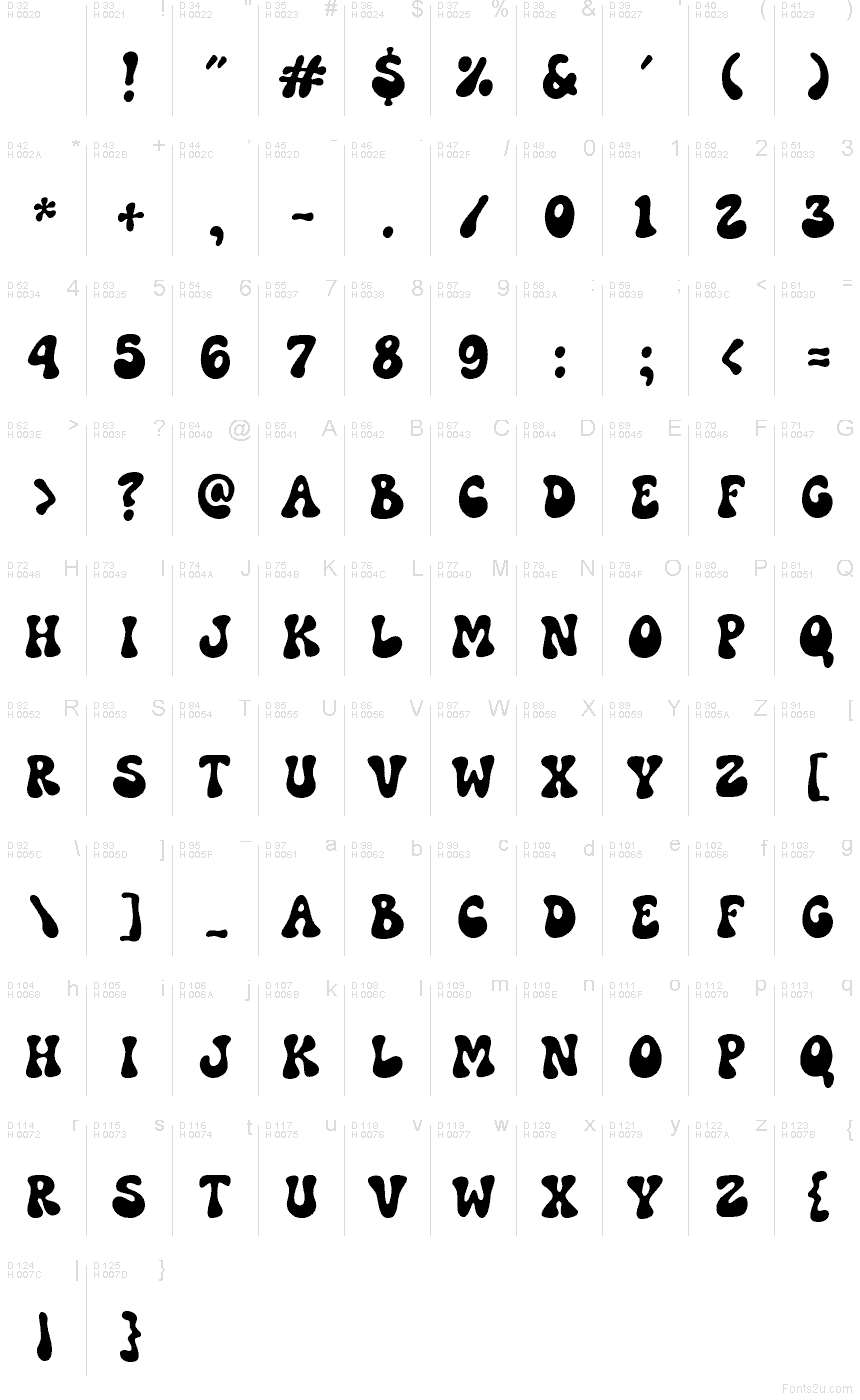
Party Vibes
Party Vibes font by Timur Type Studio is a free groovy display typeface that looks like it’s been poured onto the page in thick, inky blobs. Each letter sways with soft, wavy sides and chunky bottoms, giving headlines a bouncy, almost liquid rhythm. It instantly throws your layout into a retro, dance-floor mood without feeling messy or hard to read.
Using Party Vibes, your titles snap to attention on party flyers, festival posters, throwback album covers, kids’ birthday invitations, YouTube thumbnails, and bold social media graphics. This free font loves big sizes and generous spacing, and it pairs smoothly with a simple geometric sans for body text to keep the visuals grounded.
Introduced by Timurtype Studio. Party Vibes is a Display font.